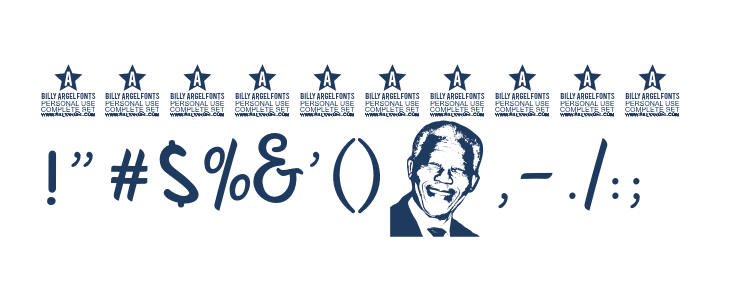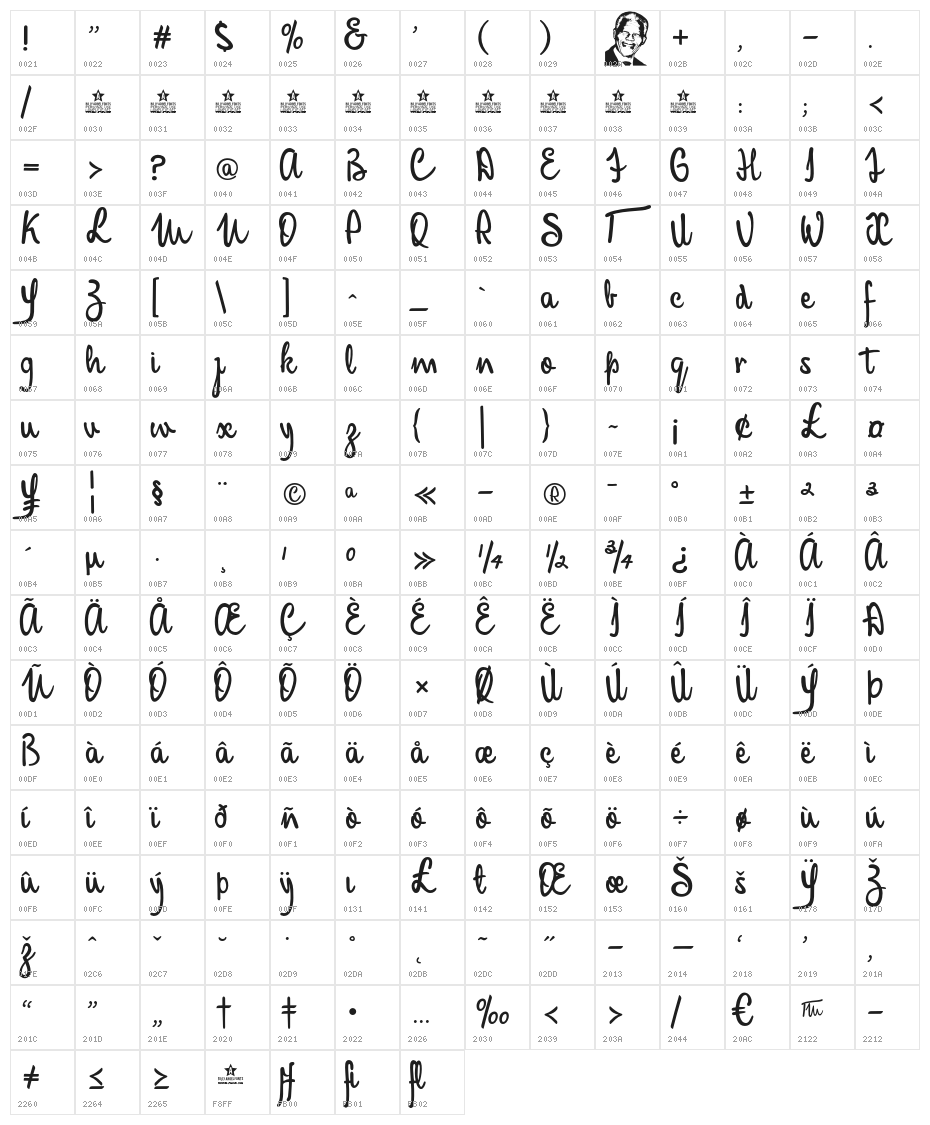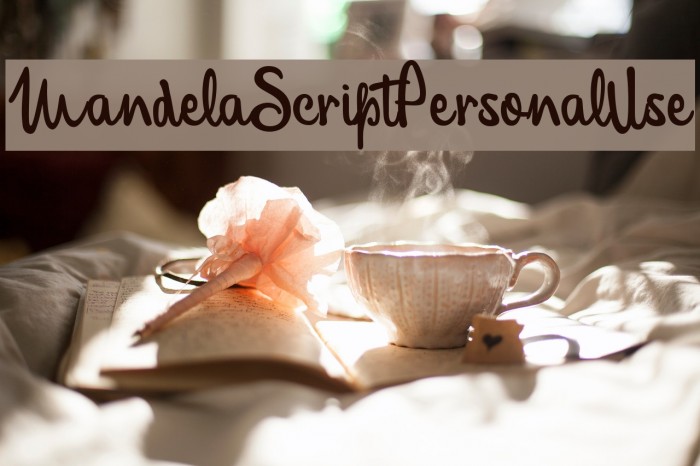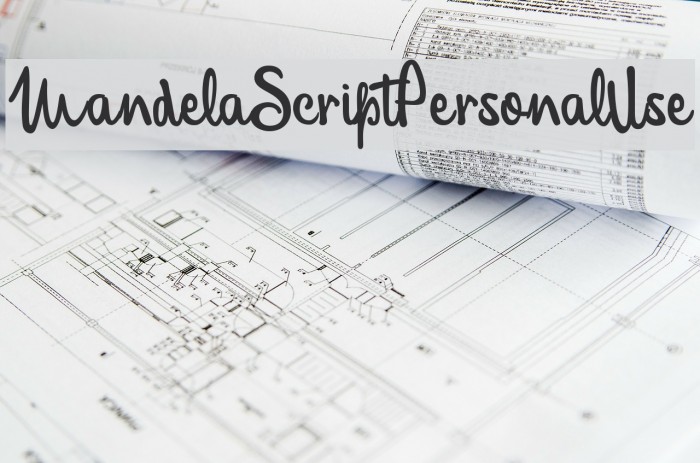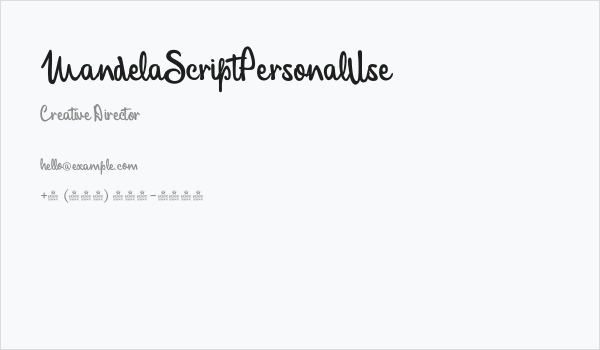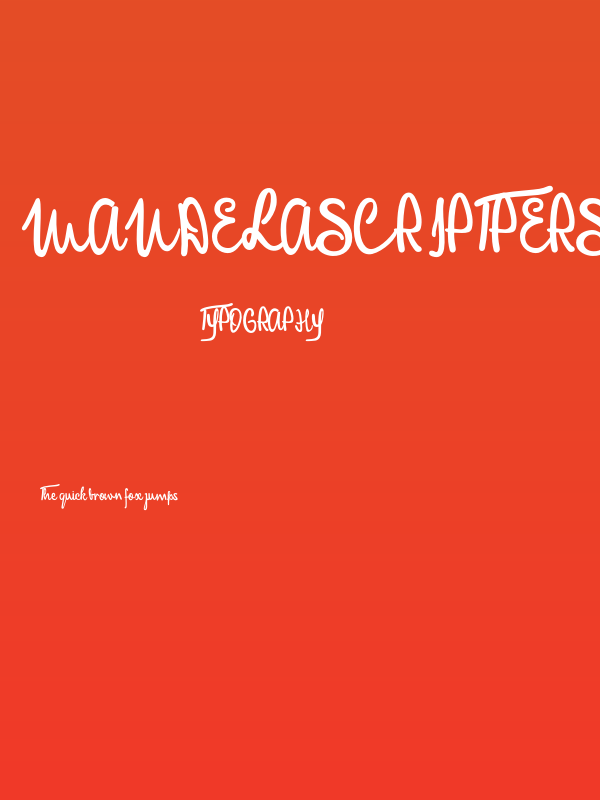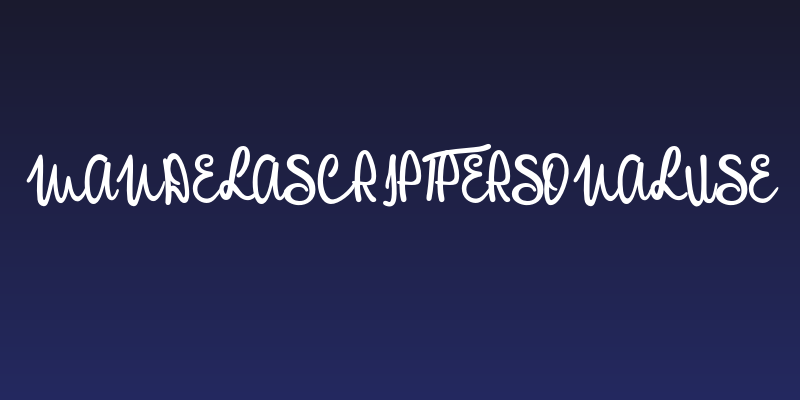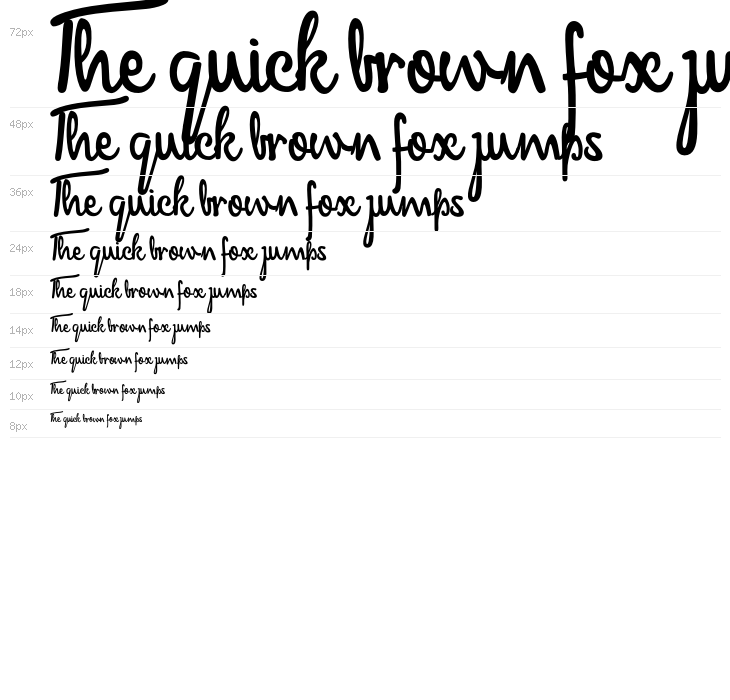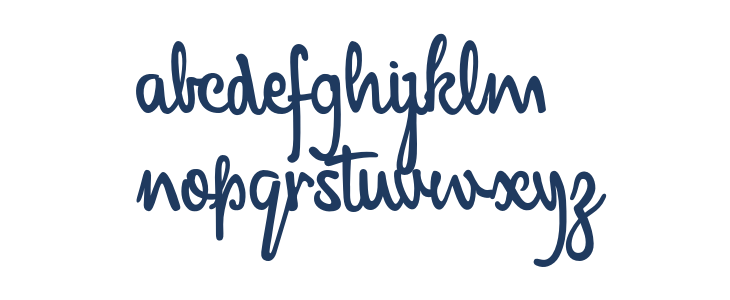
MandelaScriptPersonalUse Font
MandelaScriptPersonalUse Description
This font features a lively and expressive script style, characterized by its fluid and continuous strokes. The uppercase letters are bold and prominent, with a playful yet elegant flair, while the lowercase letters maintain a consistent flow, enhancing readability. The characters are slightly slanted, adding a dynamic and energetic feel. The font includes a full set of numerals and a variety of special characters, making it versatile for different design needs. Its handwritten appearance gives it a personal touch, suitable for creative and informal projects.
| Proposed Projects | Ideal for greeting cards, invitations, personal branding, and creative projects that require a personal touch. |